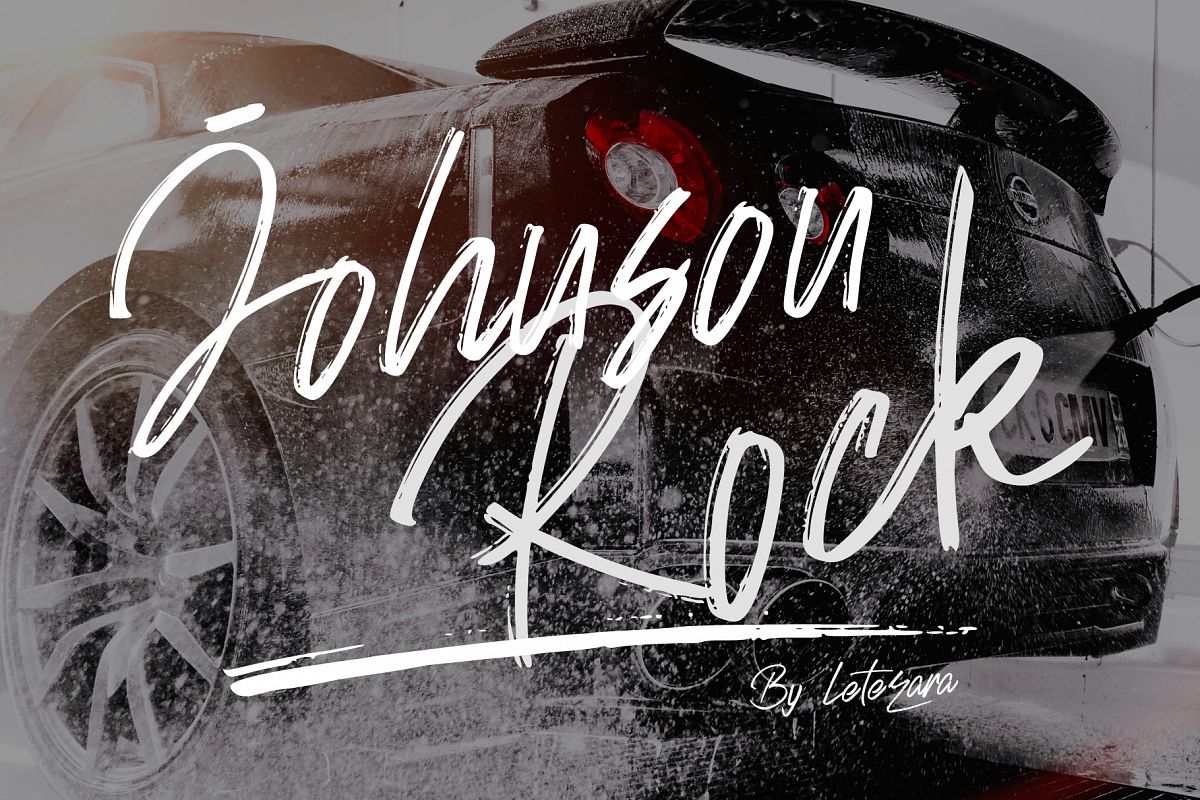
Johnson Rock is  cool handwritten font with a personal charm.
With quick dry strokes and a signature style, Johnson Rock is perfect for
branding projects, homeware designs, product packaging - or simply as a stylish
text overlay to any background image.